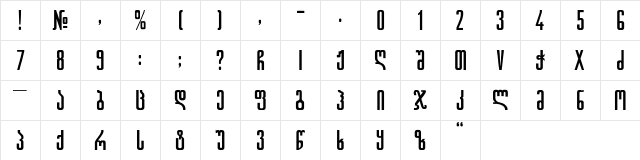
GremiMtavr Regular
Design Context for GremiMtavr Typeface
GremiMtavr offers clean, dependable letterforms without strong stylistic allegiance, making it a practical choice for designers who need flexibility.